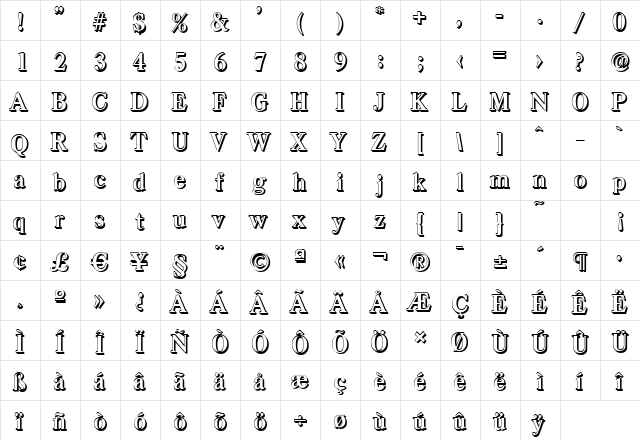
WesleyBeckerShadow Bold
Design Context for WesleyBeckerShadow Typeface
WesleyBeckerShadow is built around its visual character rather than neutral utility — its distinctive forms are designed to make an impression at display sizes. The heavy weight commands attention and anchors typographic hierarchies.
Font Pairing: Pair with a clean neutral sans-serif for body copy to let WesleyBeckerShadow's character lead without overwhelming the composition.
Pro Tip: Treat WesleyBeckerShadow as the centrepiece of your typographic hierarchy. One strong heading set in a decorative face can carry an entire layout.